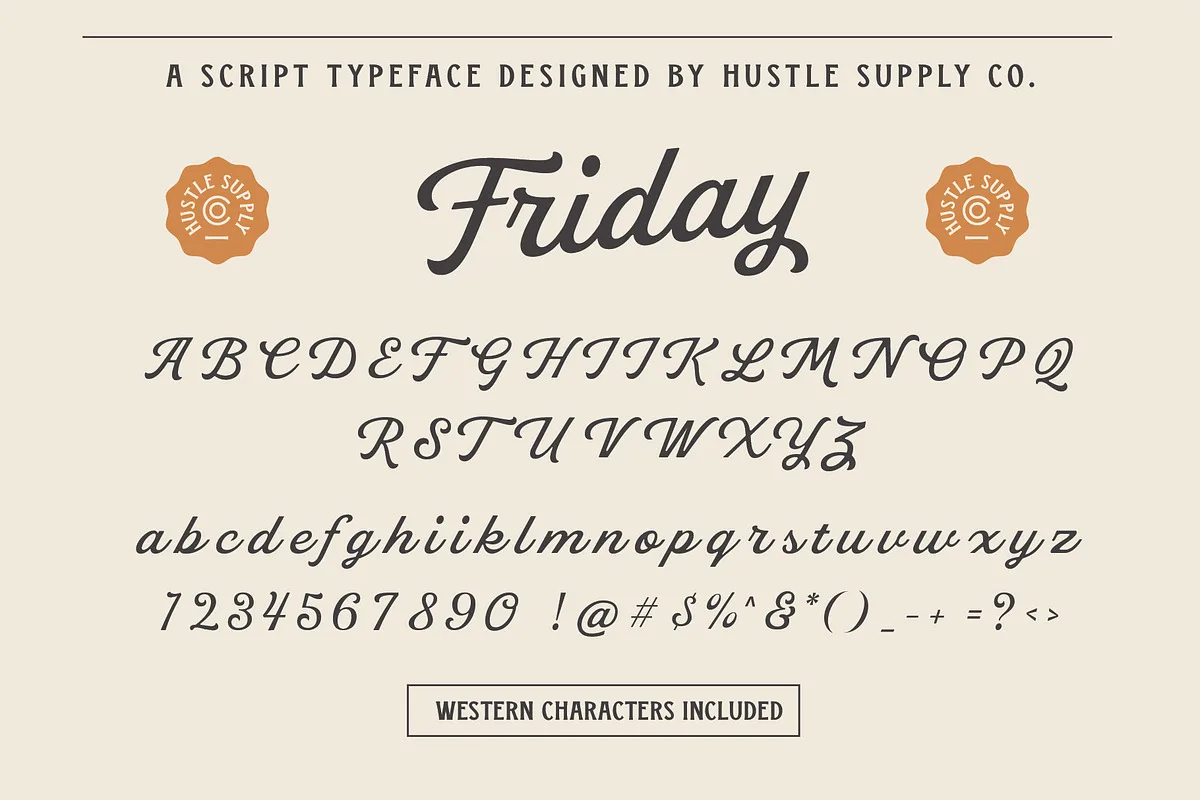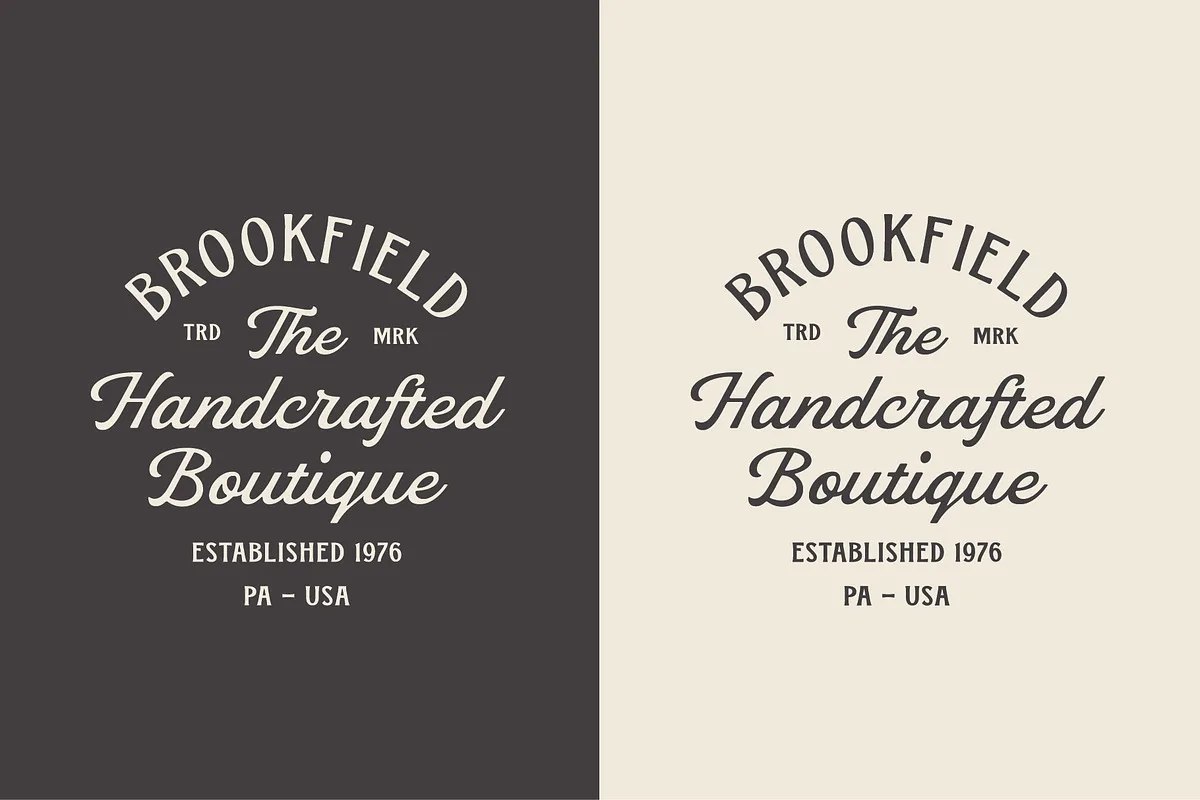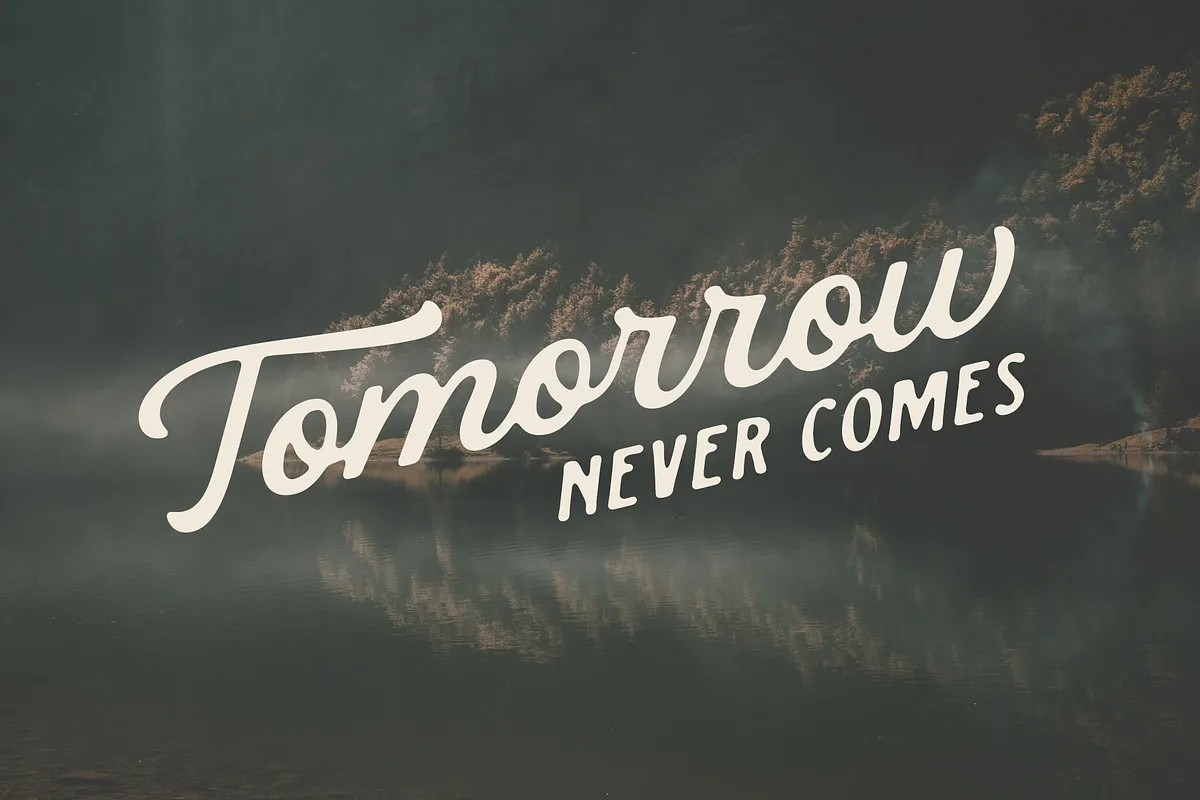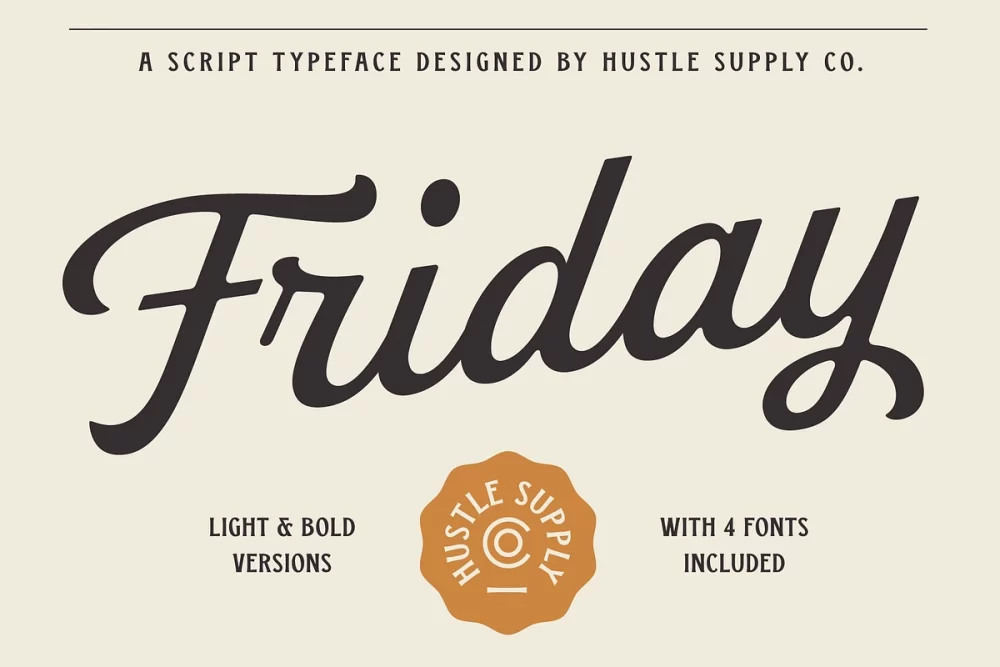
Friday Script is a vintage-inspired script typeface that takes inspiration from sign painting, baseball, restaurant branding and more. With a variety of swashy characters, you can make Friday Script feel personalized for your client’s project. Create headlines, logos, apparel designs and more with this versatile script font!